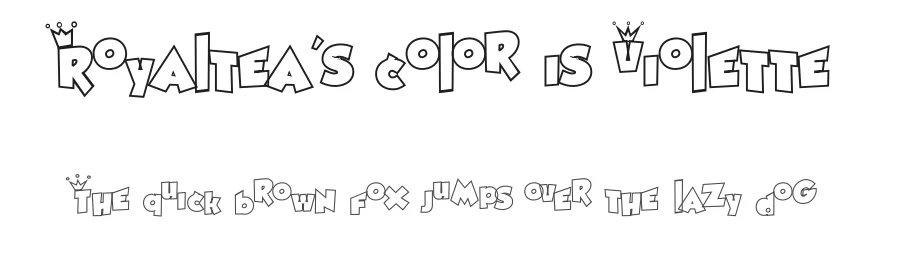
About Royal Flush Font
The full version which is 99c includes the commercial licence. In the illustration for this font, the basic version is at the top (with text effects from Microsoft Word) and the full version example is at the bottom and that was coloured in via Paintbush so the presentation of this font is quite versatile.